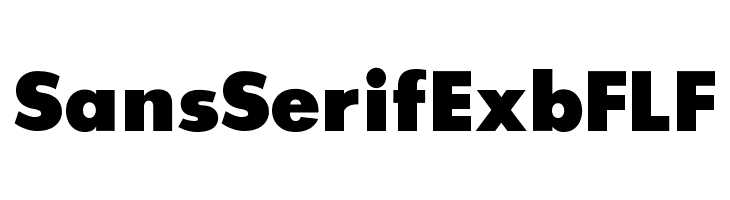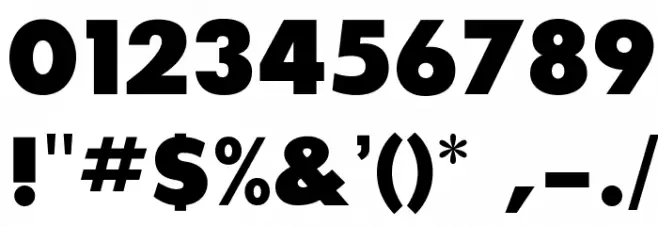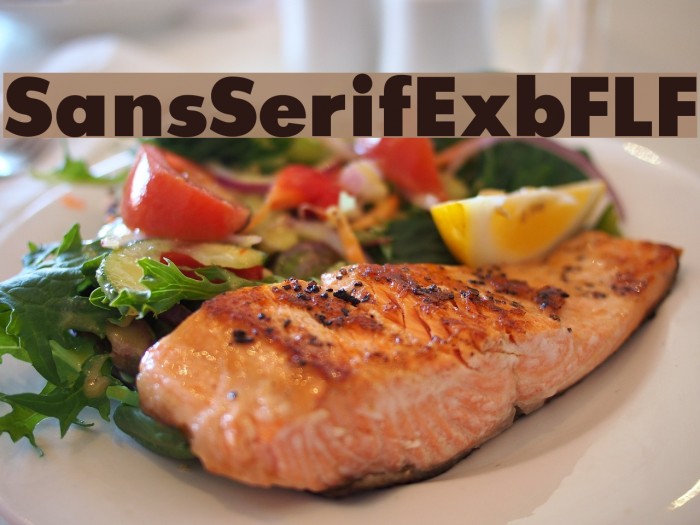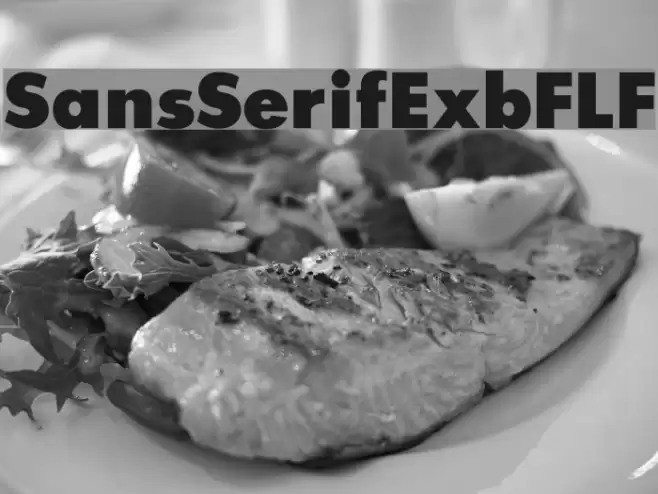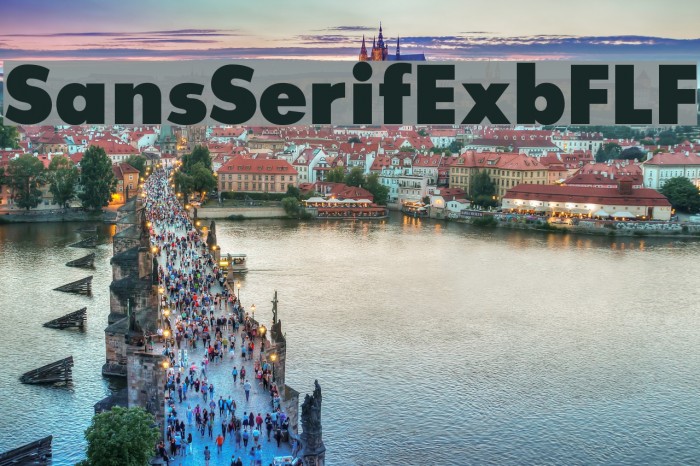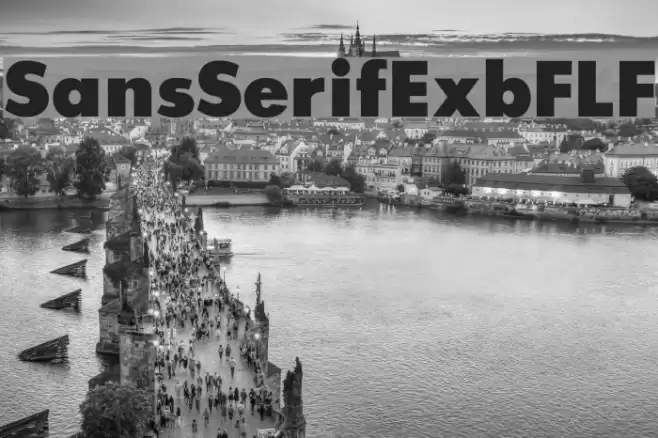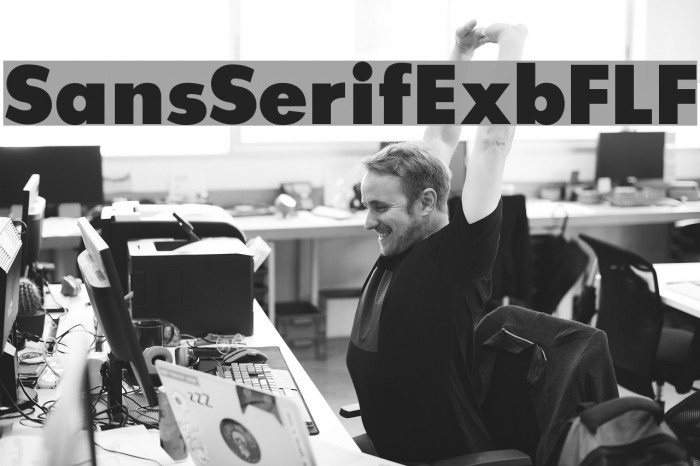
SansSerifExbFLF Font
SansSerifExbFLF Description
This font is a bold, sans-serif typeface characterized by its strong, geometric shapes and clean lines. The uppercase letters are uniform in height, providing a sense of stability and modernity. The lowercase letters maintain a consistent weight, contributing to the font's bold appearance. The numerals are clear and easily distinguishable, making them suitable for various applications. Special characters are well-defined, enhancing the font's versatility. The overall design is straightforward yet impactful, ideal for making a statement in any design project.
| Proposed Projects | Ideal for branding, headlines, posters, and any project requiring a bold, modern look. |